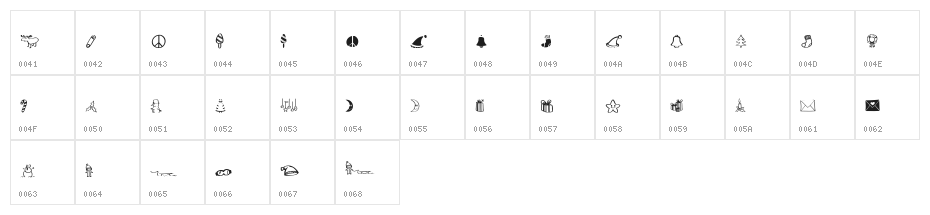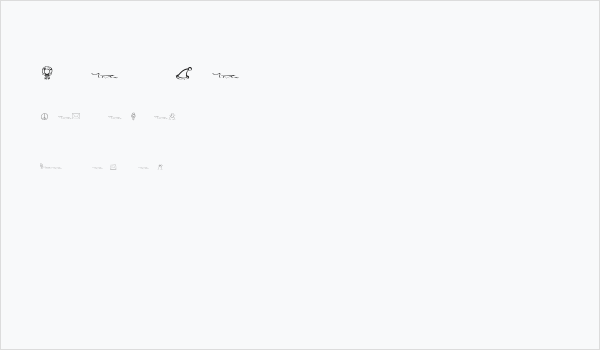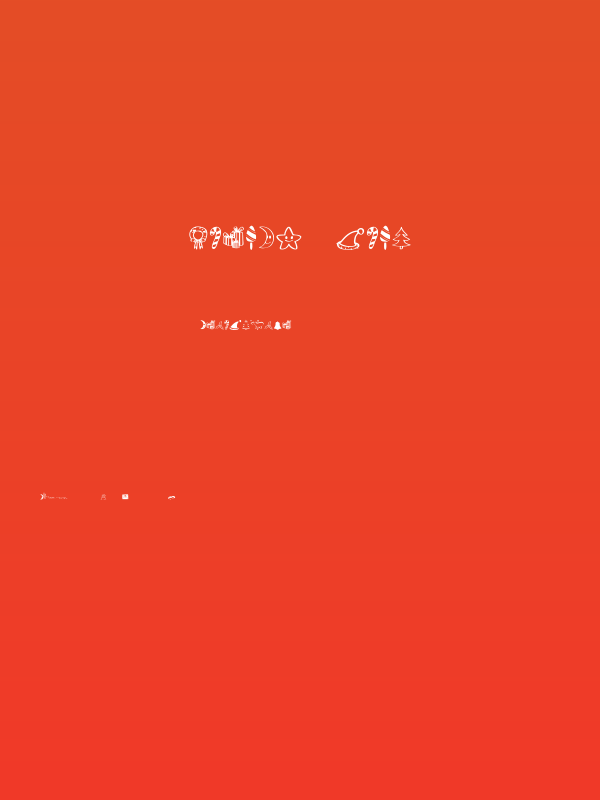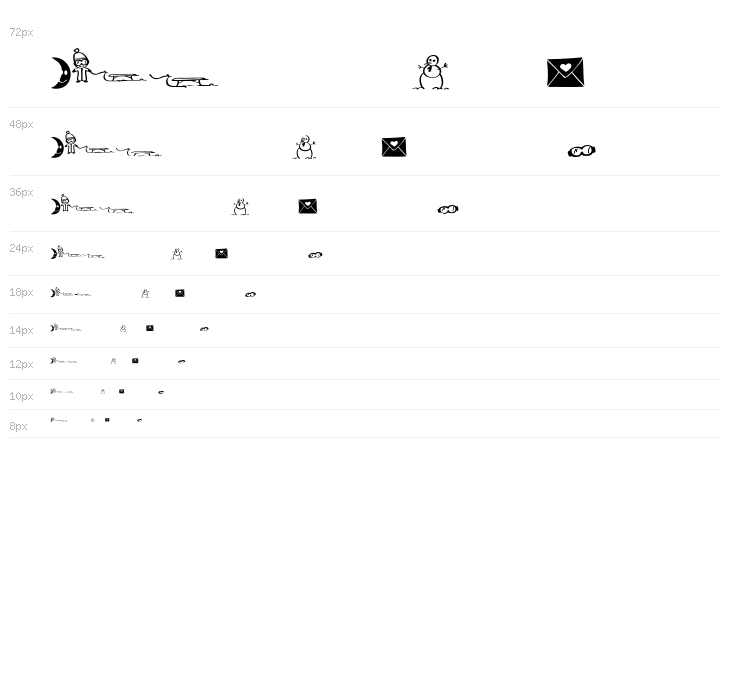
Noyeux Joel Font
Noyeux Joel Description
This is a decorative font featuring a collection of whimsical and festive icons. Each character is represented by a unique holiday-themed illustration, such as reindeer, peace symbols, candy canes, Christmas trees, and snowmen. The style is playful and cartoonish, with bold outlines and a hand-drawn feel. The icons are designed to evoke a sense of joy and celebration, making them perfect for holiday-themed projects. The characters are evenly spaced, ensuring clarity and readability despite the intricate designs.
| Use Case | Logos, Headlines, Decorative elements |
| Proposed Projects | Ideal for holiday cards, festive invitations, seasonal decorations, and playful graphic designs. |